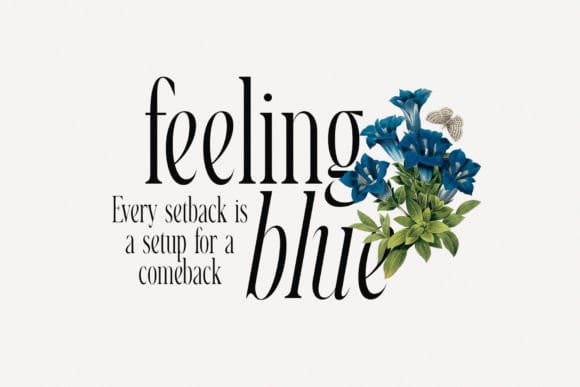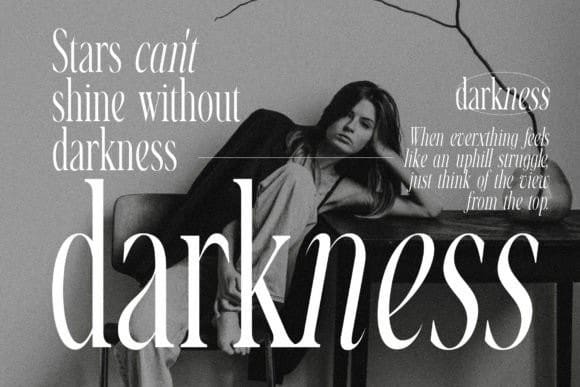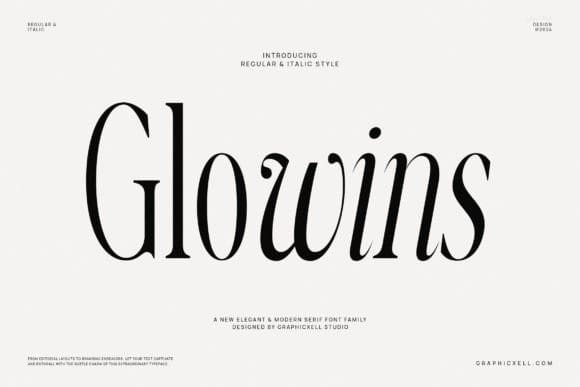
Glowins Font
Glowins Font is a serif font family with a modern style. Like other serif fonts, Glowins has a high readability level. The font still looks very sharp, although its size is small. It is not only a delicate font that ensures we read well and clearly but also brings us a classy and new modern appearance. You can feel an elegant and beautiful stroke starting from the italic style. The regular font, like the italic feature, is so good and looks artistic with its various thicknesses on every curve of the lines.